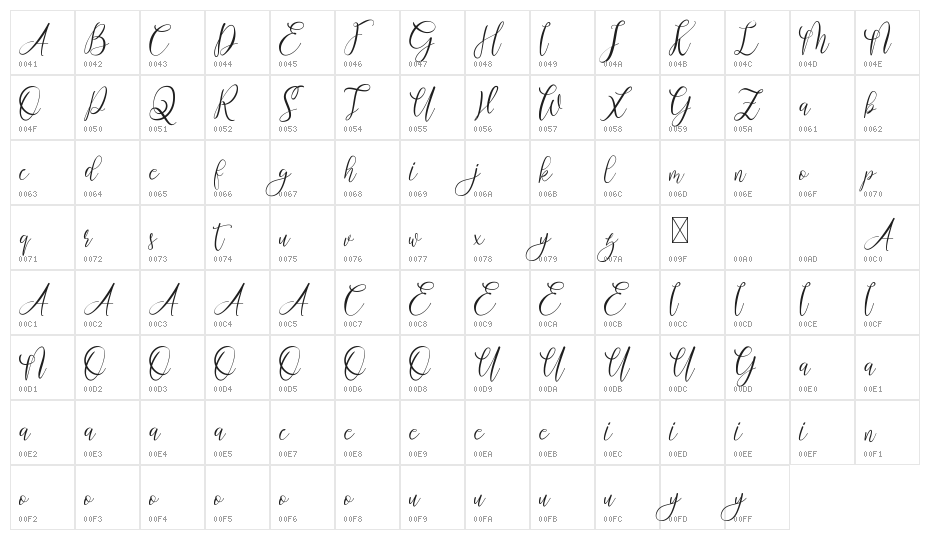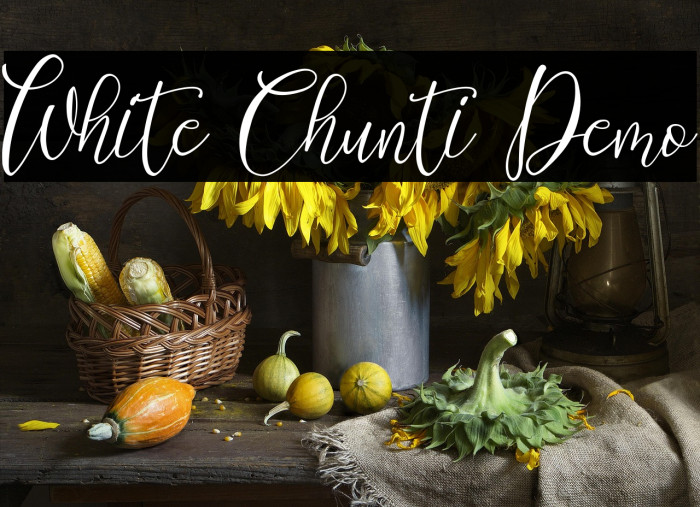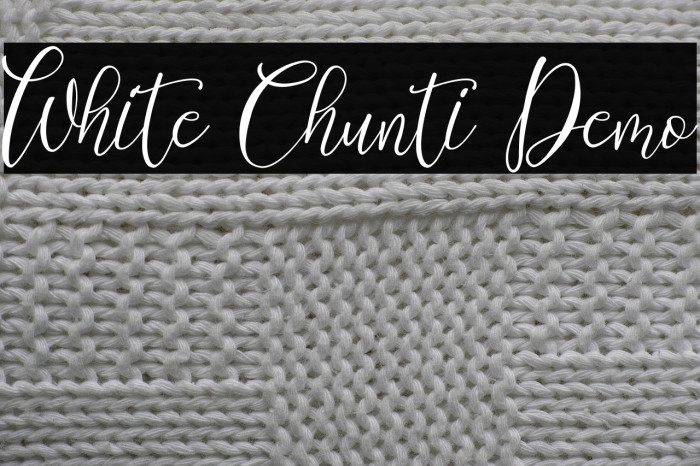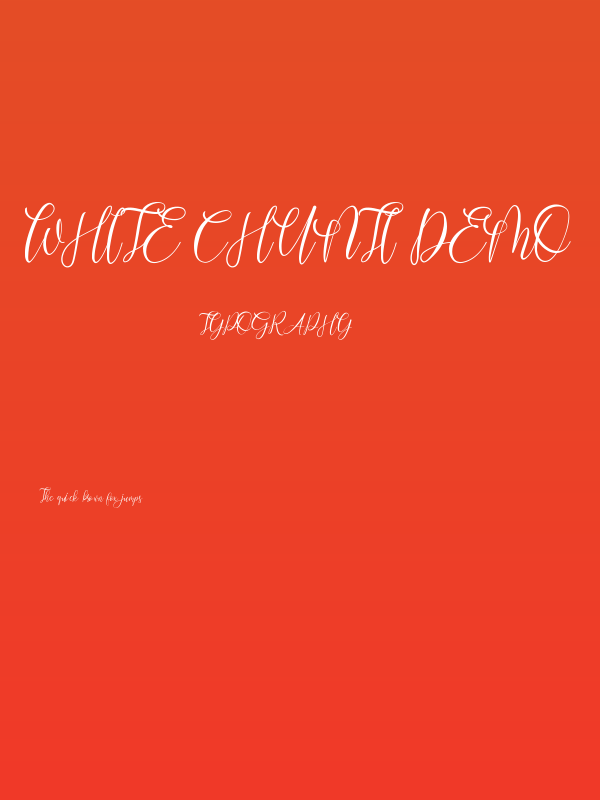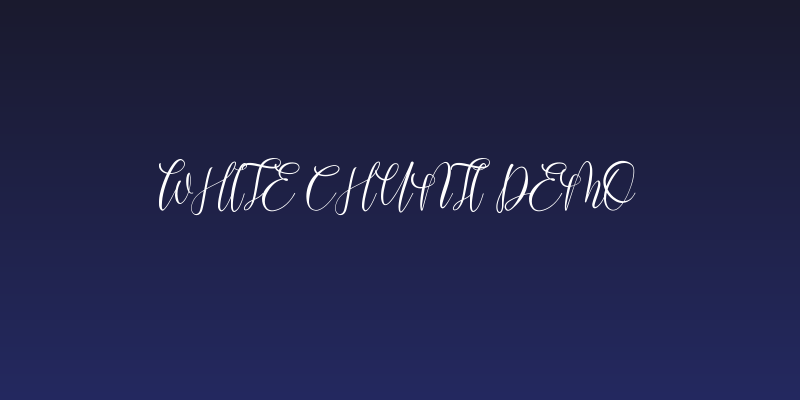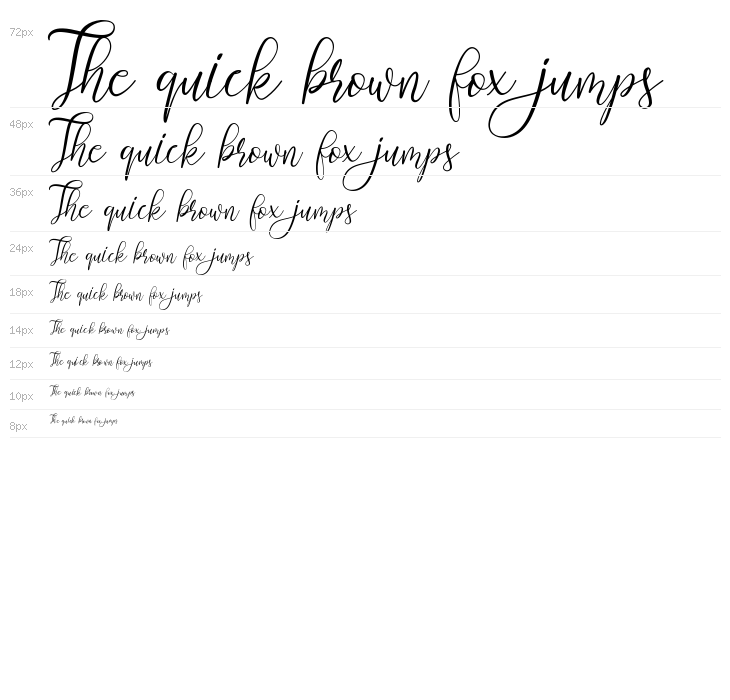
White Chunti Demo Font
White Chunti Demo Description
This font exudes elegance and sophistication with its flowing, cursive script style. The characters are intricately designed with sweeping loops and flourishes, giving it a hand-drawn, artistic feel. The uppercase letters are particularly ornate, featuring exaggerated ascenders and descenders that create a sense of movement and fluidity. The lowercase letters maintain a consistent style, complementing the uppercase with their own graceful curves. This font is perfect for projects that require a touch of class and personality, such as wedding invitations, branding, and decorative prints. Its high contrast in stroke thickness adds to its dramatic appearance, making it stand out in any design.
| Overall Style | Elegant, Decorative |
| Proposed Projects | Ideal for wedding invitations, branding, decorative prints, and elegant stationery. |